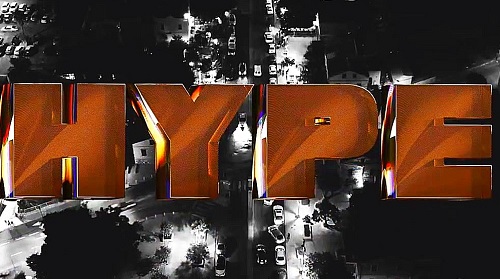
Iridescent 3D Typeface 1706157
This After Effects template contains an iridescent text animation with vibrant colors and shimmering reflections.
It contains 51 animated elements that you can use to create dynamic text animations for your videos.